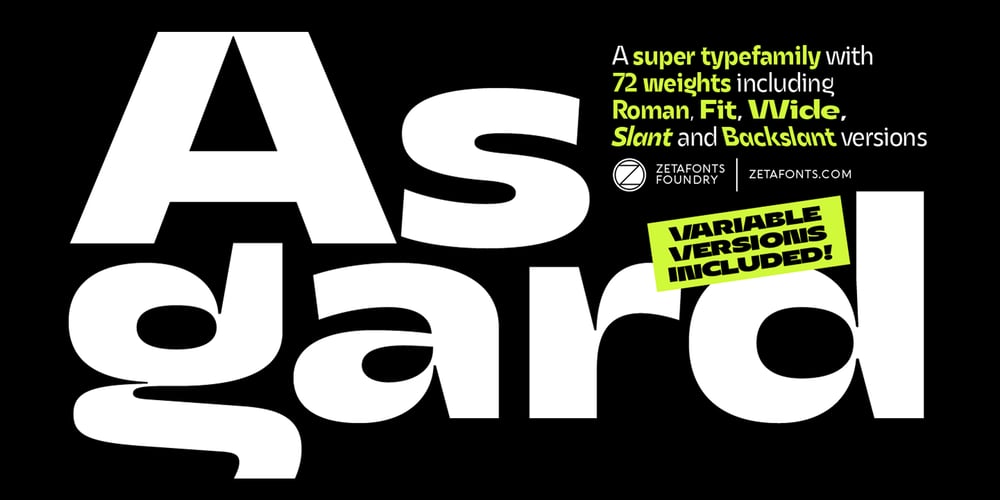
Asgard
Asgard font
Asgard Font Family was designed by Francesco Canovaro, Andrea Tartarelli, Mario De Libero and published by Zetafonts. Asgard contains 73 styles and family package options. Francesco Canovaro designed Asgard as a way to mix his passion for the raw energy of extra bold sans serif typography with the expressivity of high contrast and calligraphy-inspired letterforms. He built the typeface around a strong geometric sans skeleton, to make the letters feel solid and powerful while using wood-type vernacular solutions to solve density through high contrast details. The typeface name was chosen as an homage to the mythical homeland of the Norse Gods, evoking a land of fierce warriors, power and strength – but also of divine, delicate beauty.Thanks to the help of Andrea Tartarelli and Mario de Libero the original design was extended along with the design space, expanding the number of weights and widths with a “workhorse typeface” approach, and adding also a slanted axis to experiment with italics. The result is a super-family of 9 styles of 8 weights for a total of 72 fonts, each coming with an extended set of 968 glyphs covering over 200 languages using Latin, Greek and Cyrillic scripts. The three variation axes (width, weight, slant) are also all accessible in a variable font version that is included with the whole family.This gives the designer a full range of options for typesetting, with the Roman and Fit widths providing basic display and text-sized alternatives, and the Wide width adding more display and titling options. The inclusion of backslant italic styles gives Asgard an extra chance to add its voice to the typographic palette. To complement this, all Asgard fonts have been given a full set of Open Type Features including standard and discretionary ligatures, stylistic sets, positional numerals and case sensitive forms.Dynamic and expressive, Asgard is a super-family that manages to look brutal and refined at the same time, quoting the vernacular typographic practices of letterpress print while expressing the contemporary zeitgeist.• Suggested uses: perfect for contemporary branding and logo design, bold editorial design, dynamic packaging and countless other projects.• 73 styles: 8 weights + 8 italics + 8 backslant italics, 3 different widths + 1 variable font.• 968 glyphs in each weight.• Useful OpenType features: Access All Alternates, Contextual Alternates, Case-Sensitive Forms, Glyph Composition / Decomposition, Discretionary Ligatures, Denominators, Fractions, Kerning, Standard Ligatures, Lining Figures, Localized Forms, Mark Positioning, Mark to Mark Positioning, Alternate Annotation Forms, Numerators, Oldstyle Figures, Ordinals, Scientific Inferiors, Stylistic Set 1, Stylistic Set 2, Stylistic Set 3, Subscript, Superscript, Slashed Zero• 219 languages supported (extended Latin, Greek and Cyrillic alphabets): English, Spanish, Portuguese, French, Russian, German, Javanese (Latin), Vietnamese, Turkish, Italian, Polish, Afaan Oromo, Azeri, Tagalog, Sundanese (Latin), Filipino, Moldovan, Romanian, Indonesian, Dutch, Cebuano, Igbo, Malay, Uzbek (Latin), Kurdish (Latin), Swahili, Greek, Hungarian, Czech, Haitian Creole, Hiligaynon, Afrikaans, Somali, Zulu, Serbian, Swedish, Bulgarian, Shona, Quechua, Albanian, Catalan, Chichewa, Ilocano, Kikongo, Kinyarwanda, Neapolitan, Xhosa, Tshiluba, Slovak, Danish, Gikuyu, Finnish, Norwegian, Sicilian, Sotho (Southern), Kirundi, Tswana, Sotho (Northern), Belarusian (Latin), Turkmen (Latin), Bemba, Lombard, Lithuanian, Tsonga, Wolof, Jamaican, Dholuo, Galician, Ganda, Low Saxon, Waray-Waray, Makhuwa, Bikol, Kapampangan (Latin), Aymara, Zarma, Ndebele, Slovenian, Tumbuka, Venetian, Genoese, Piedmontese, Swazi, Zazaki, Latvian, Nahuatl, Silesian, Bashkir (Latin), Sardinian, Estonian, Afar, Cape Verdean Creole, Maasai, Occitan, Tetum, Oshiwambo, Basque, Welsh, Chavacano, Dawan, Montenegrin, Walloon, Asturian, Kaqchikel, Ossetian (Latin), Zapotec, Frisian, Guadeloupean Creole, Q’eqchi’, Karakalpak (Latin), Crimean Tatar (Latin), Sango, Luxembourgish, Samoan, Maltese, Tzotzil, Fijian, Friulian, Icelandic, Sranan, Wayuu, Papiamento, Aromanian, Corsican, Breton, Amis, Gagauz (Latin), Māori, Tok Pisin, Tongan, Alsatian, Atayal, Kiribati, Seychellois Creole, Võro, Tahitian, Scottish Gaelic, Chamorro, Greenlandic (Kalaallisut), Kashubian, Faroese, Rarotongan, Sorbian (Upper Sorbian), Karelian (Latin), Romansh, Chickasaw, Arvanitic (Latin), Nagamese Creole, Saramaccan, Ladin, Kaingang, Palauan, Sami (Northern Sami), Sorbian (Lower Sorbian), Drehu, Wallisian, Aragonese, Mirandese, Tuvaluan, Xavante, Zuni, Montagnais, Hawaiian, Marquesan, Niuean, Yapese, Vepsian, Bislama, Hopi, Megleno-Romanian, Creek, Aranese, Rotokas, Tokelauan, Mohawk, Onĕipŏt, Warlpiri, Cimbrian, Sami (Lule Sami), Jèrriais, Arrernte, Murrinh-Patha, Kala Lagaw Ya, Cofán, Gwich’in, Seri, Sami (Southern Sami), Istro-Romanian, Wik-Mungkan, Anuta, Cornish, Sami (Inari Sami), Yindjibarndi, Noongar, Hotcąk (Lati